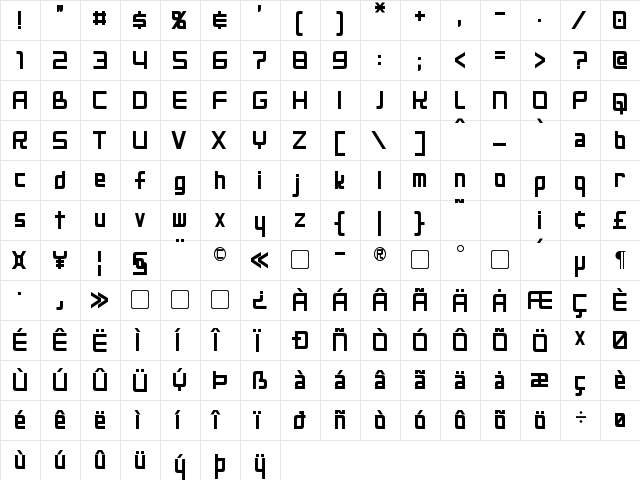
Neo Gen Regular
Design Context for Neo Gen Typeface
Neo Gen is a composed and adaptable typeface that performs quietly and consistently across a wide range of design contexts.